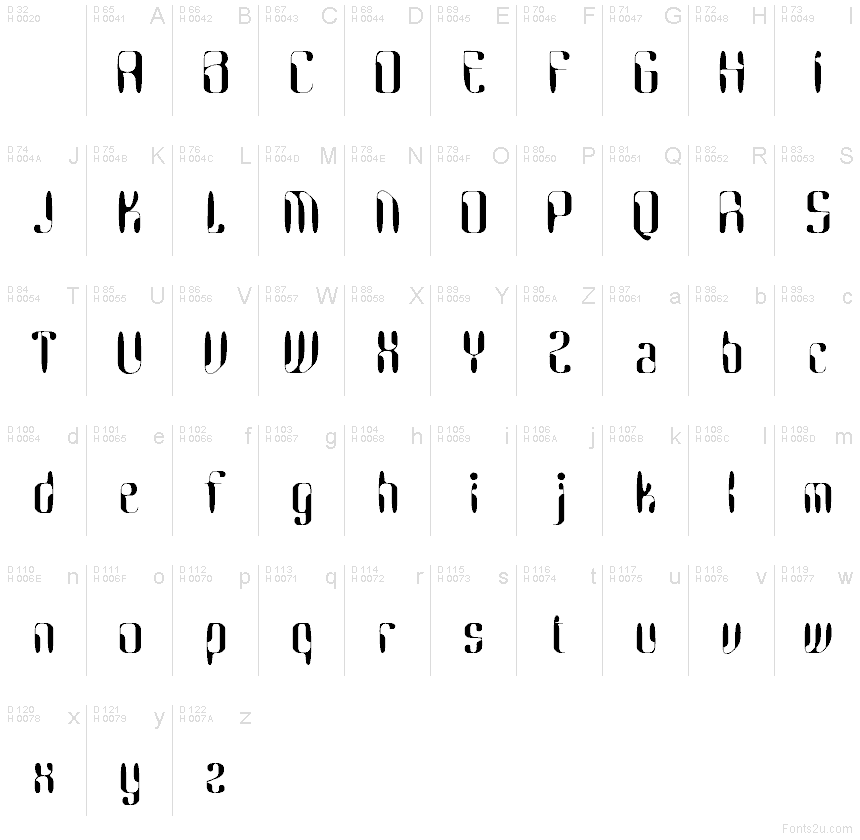
CS Stanley Drawn font by Craft Supply Co. is a free high-contrast hand-drawn display font. Built within the CS Stanley family, it stands out with inky, brushy swells sliced by clean stencil breaks, creating a pulsing rhythm that feels both crafted and contemporary. The rounded cuts and tapering strokes add tactile warmth, while the tight curves keep it punchy at headline sizes.
Using CS Stanley Drawn, your titles snap with character on posters, boutique logos, coffee packaging, album covers, event signage, and editorial openers. This free font thrives large, where its cutout details breathe-add a touch of tracking for air. Pair its bold forms with a neutral grotesk for body text to let the hand-drawn shapes lead without clutter.